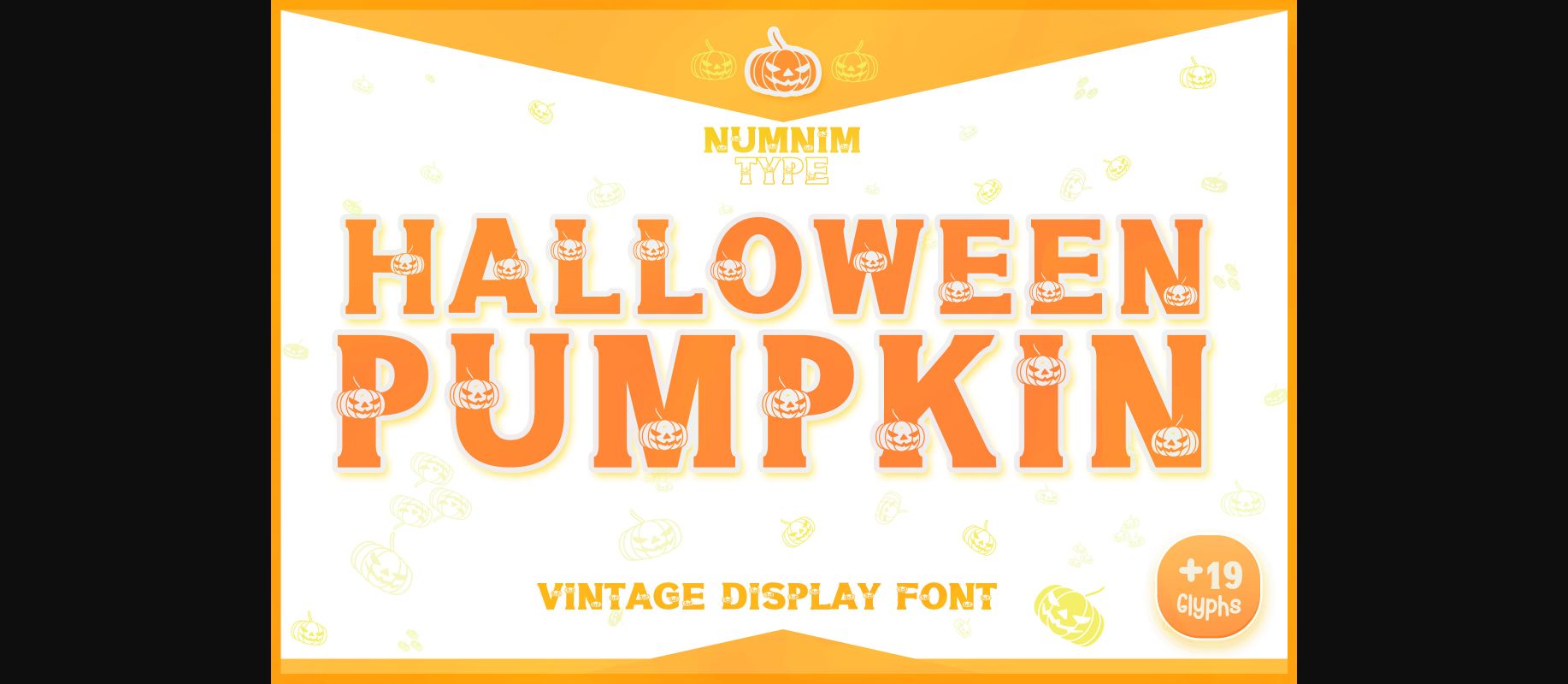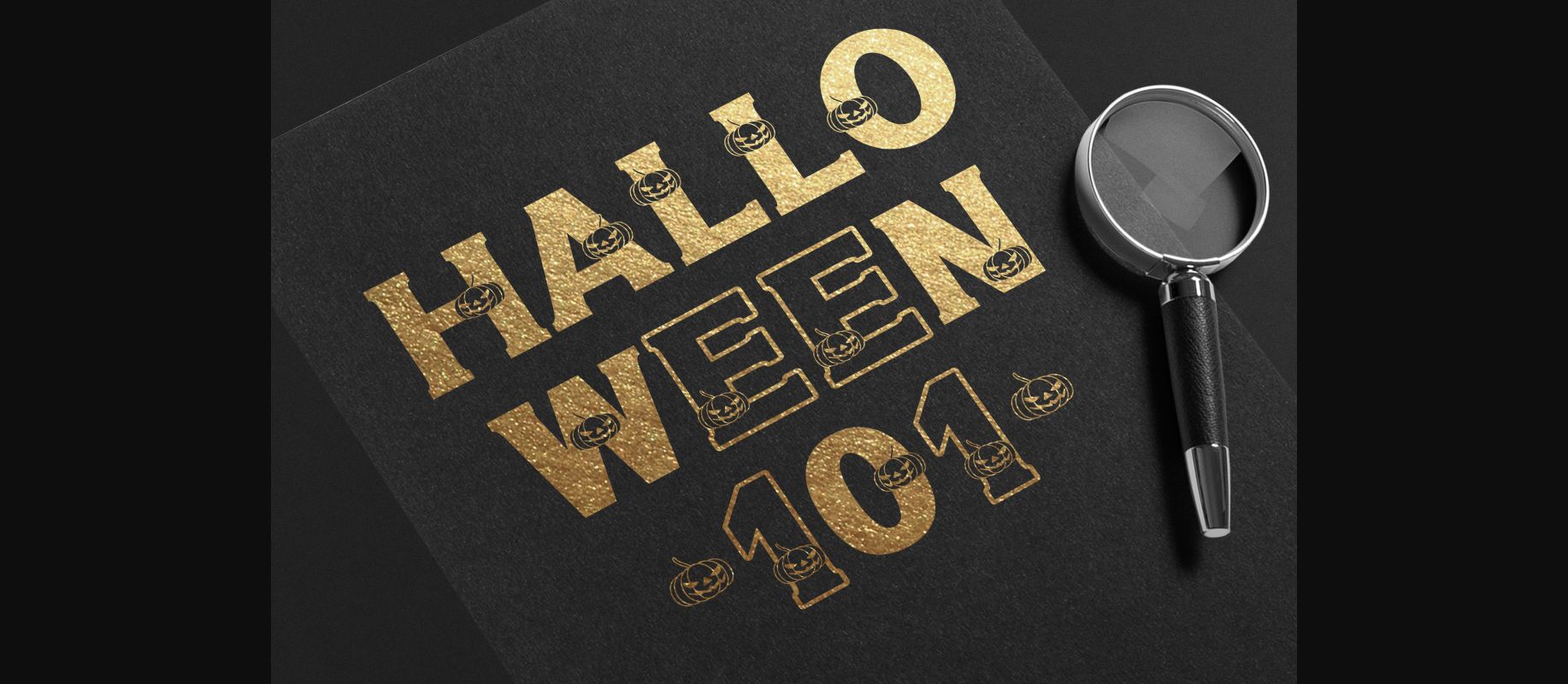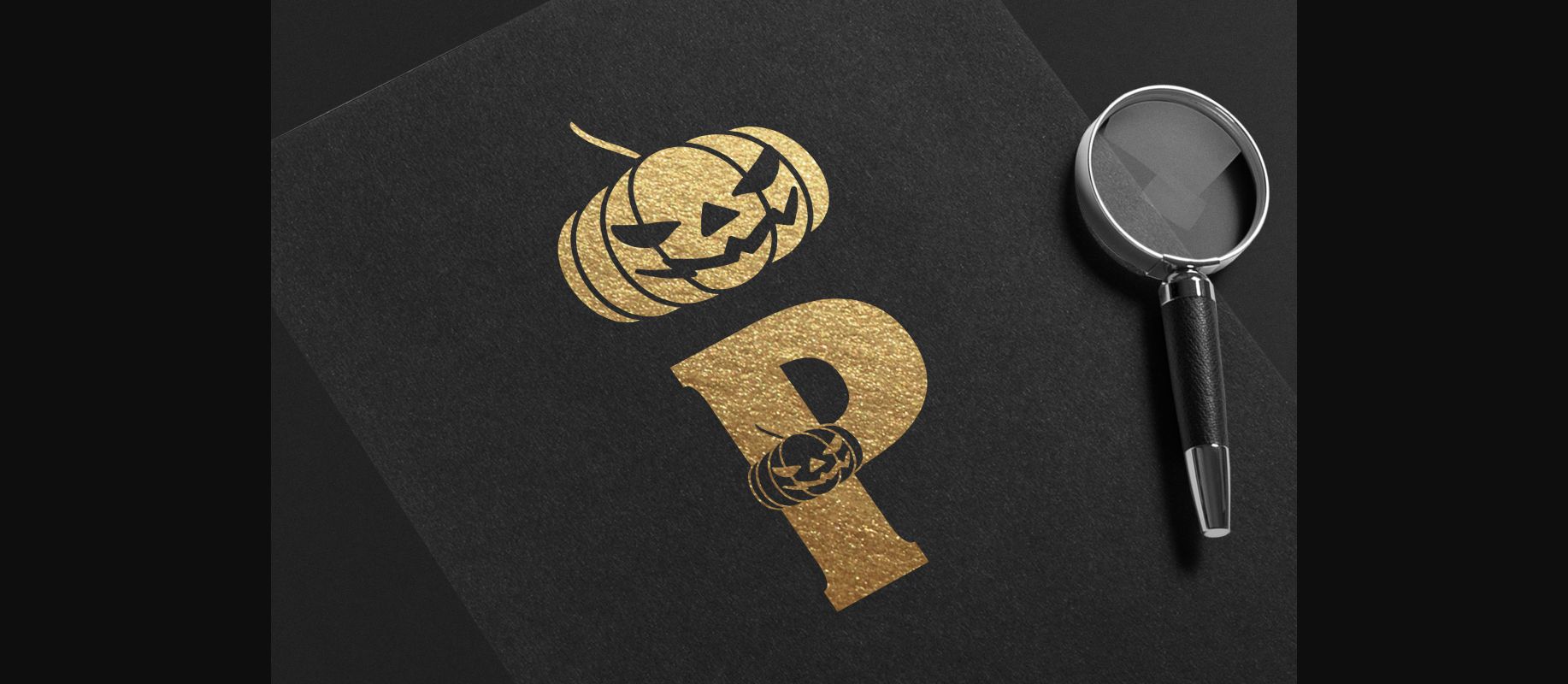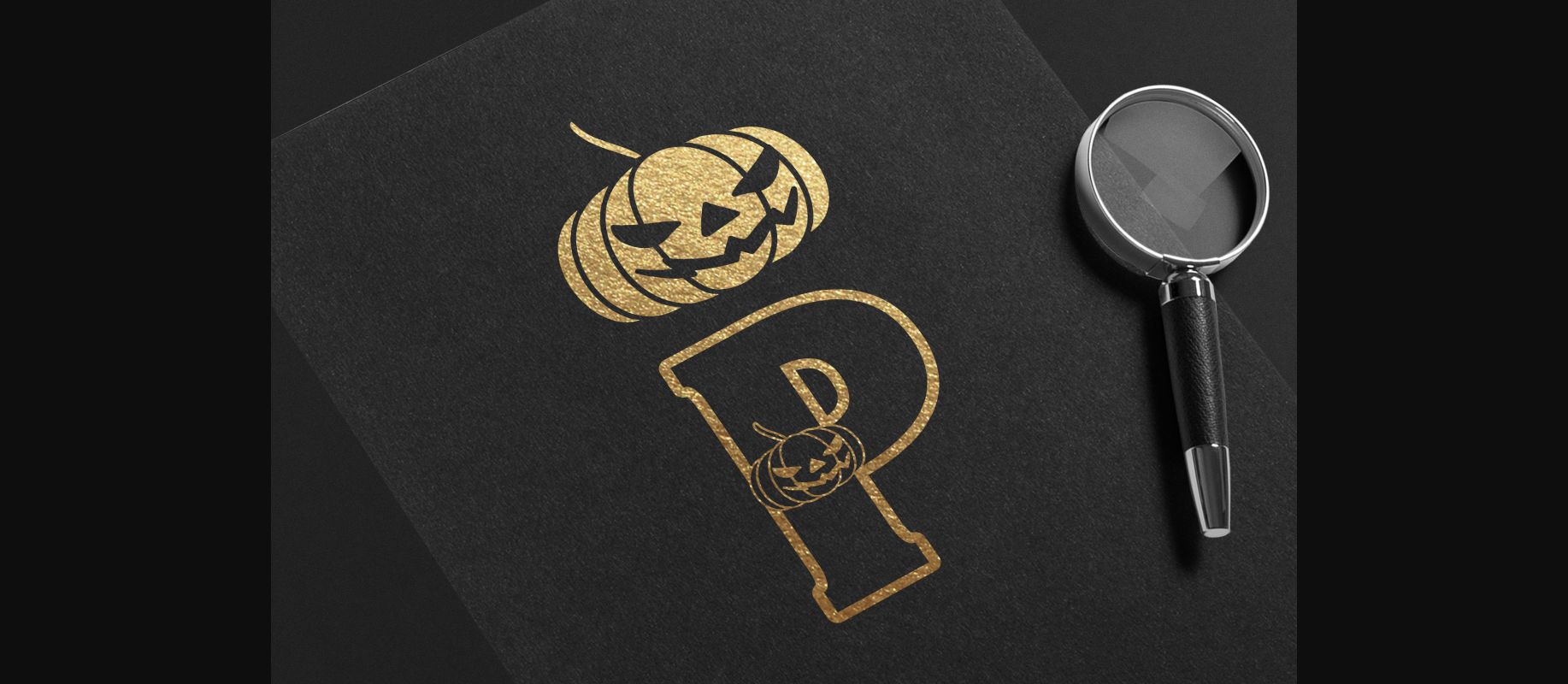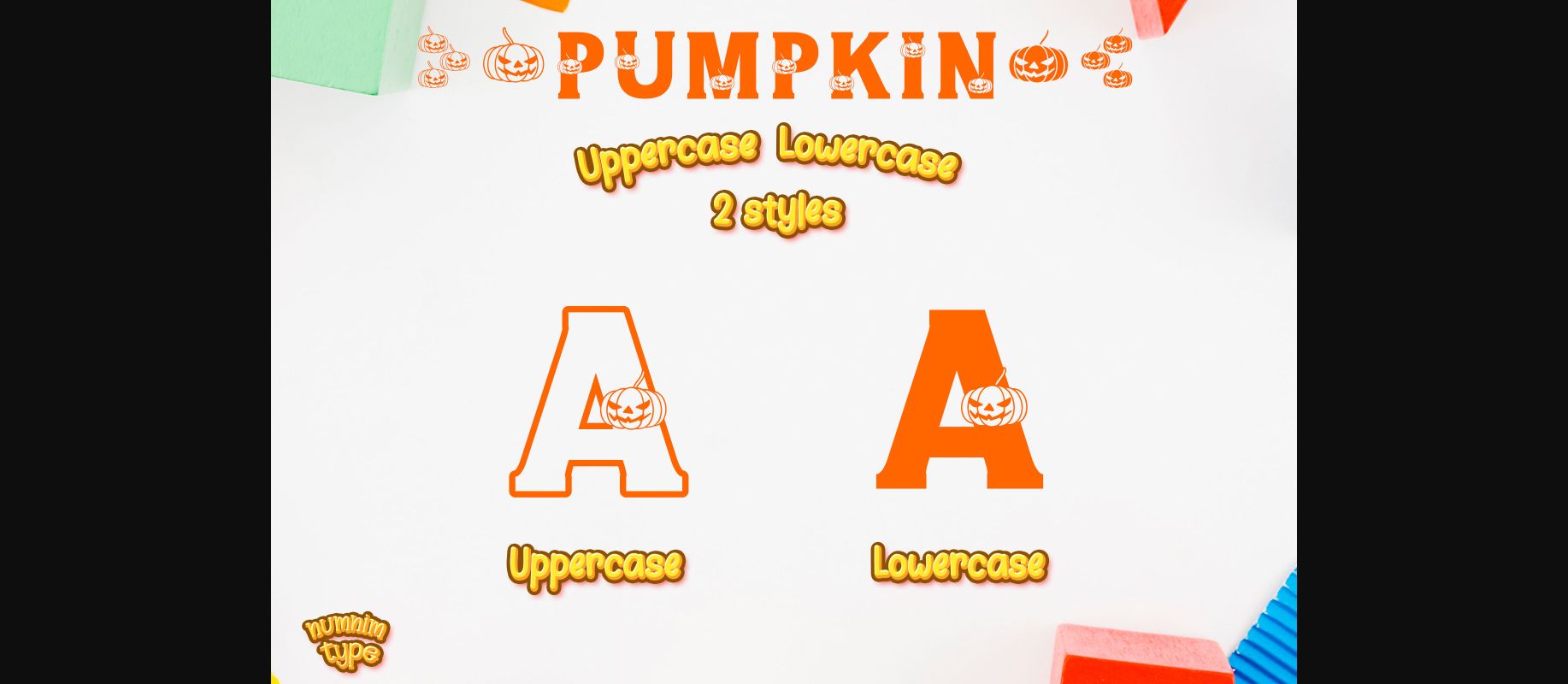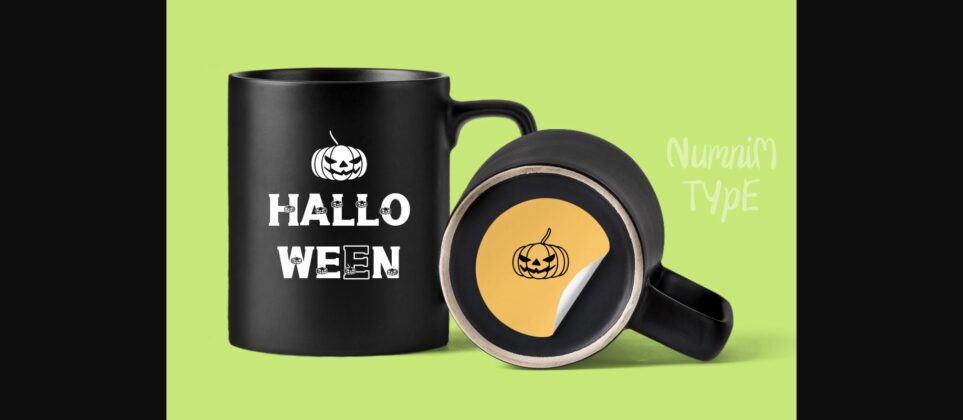
About Halloween Pumpkin Font
Halloween Pumpkin is a cool, vintage styled and fun decorative font. It is PUA encoded which means you can access all of the glyphs and swashes with ease!
Add it confidently to your October related designs and you will love the results.